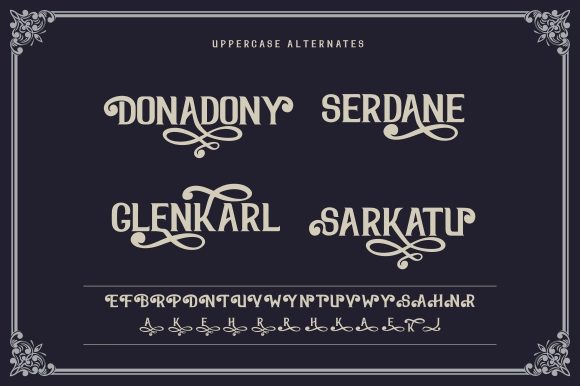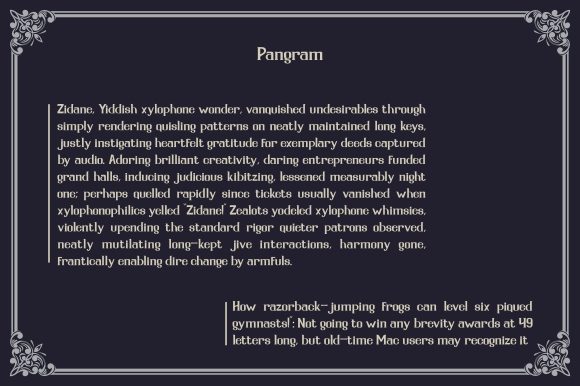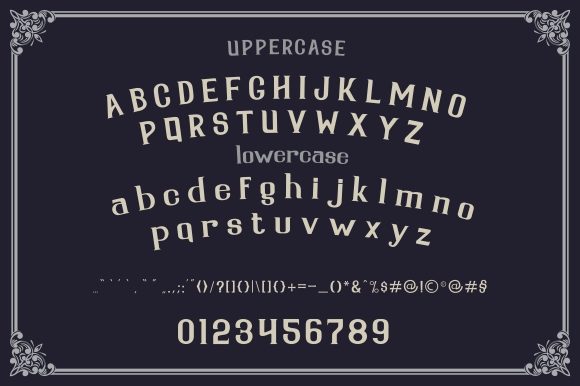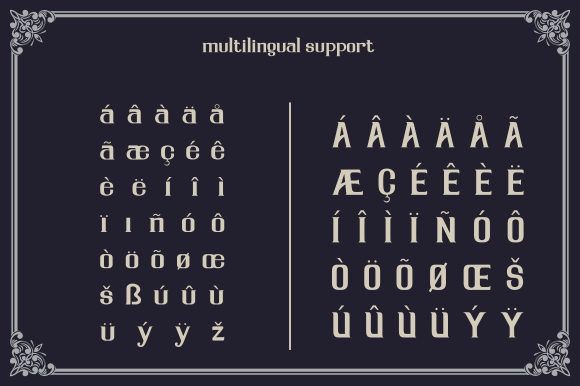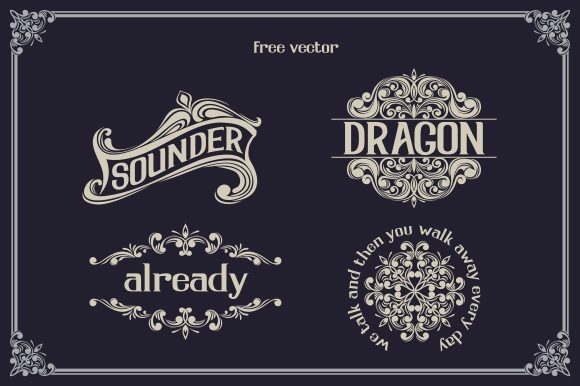
Introduction to Serdane Font
Serdane looks incredibly stylish and modern, making it the perfect serif font to turn any design project into a standout.
Serdane looks incredibly stylish and modern, making it the perfect serif font to turn any design project into a standout!
Key Features of Serdane Font